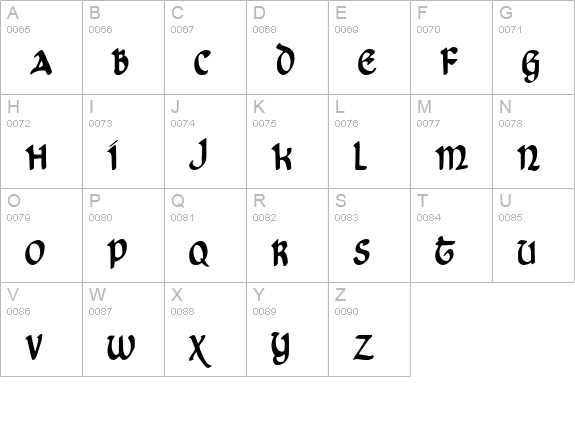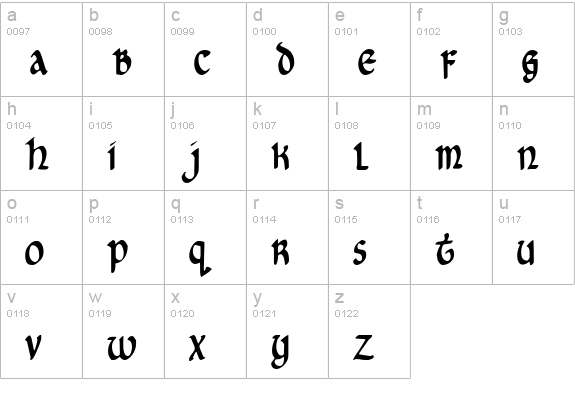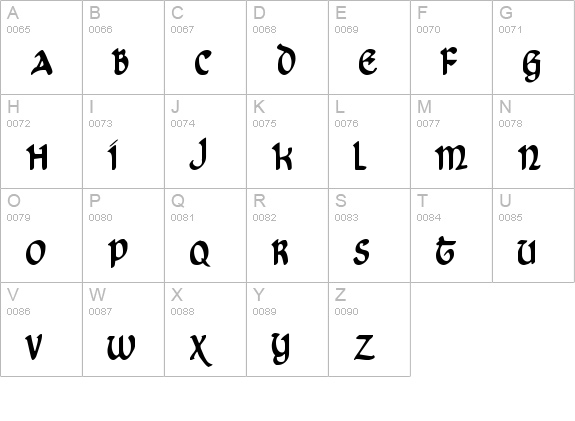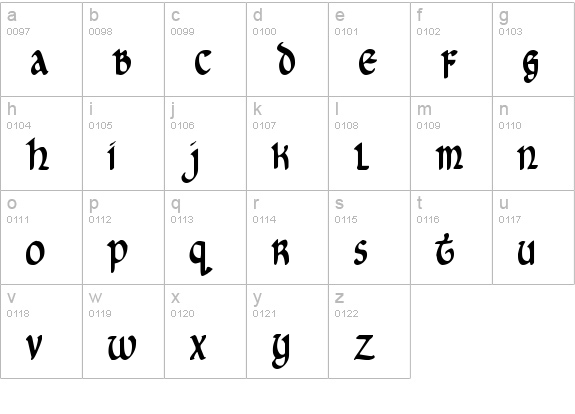
Cry Uncial Condensed Font Details
Cry Uncial Condensed is a distinctive, condensed-width variant in the Cry typeface family \xE2\x80\x94 well suited to design and typography projects.
Cry Uncial Condensed font is a unique and artistic typeface that exudes elegance and sophistication. With its intricate details and historical charm, this font is perfect for adding a touch of vintage flair to any design project. The condensed style of Cry Uncial gives it a modern twist, making it versatile and suitable for a wide range of applications. What sets Cry Uncial Condensed font apart is its striking calligraphic strokes and ornate flourishes, which add a touch of drama and flair to any text. Whether you're designing invitations, posters, or branding materials, this font will make a bold statement and leave a lasting impression. The best part is that Cry Uncial Condensed font is available for free download at FontsMarket.com. So go ahead and give your projects a touch of elegance and sophistication with this exquisite typeface.